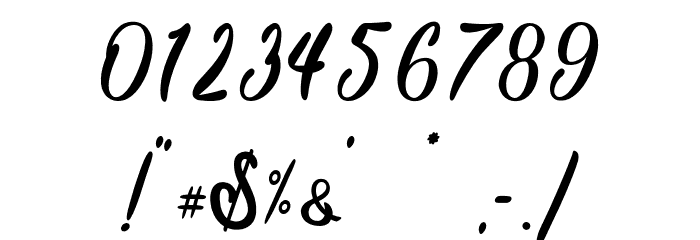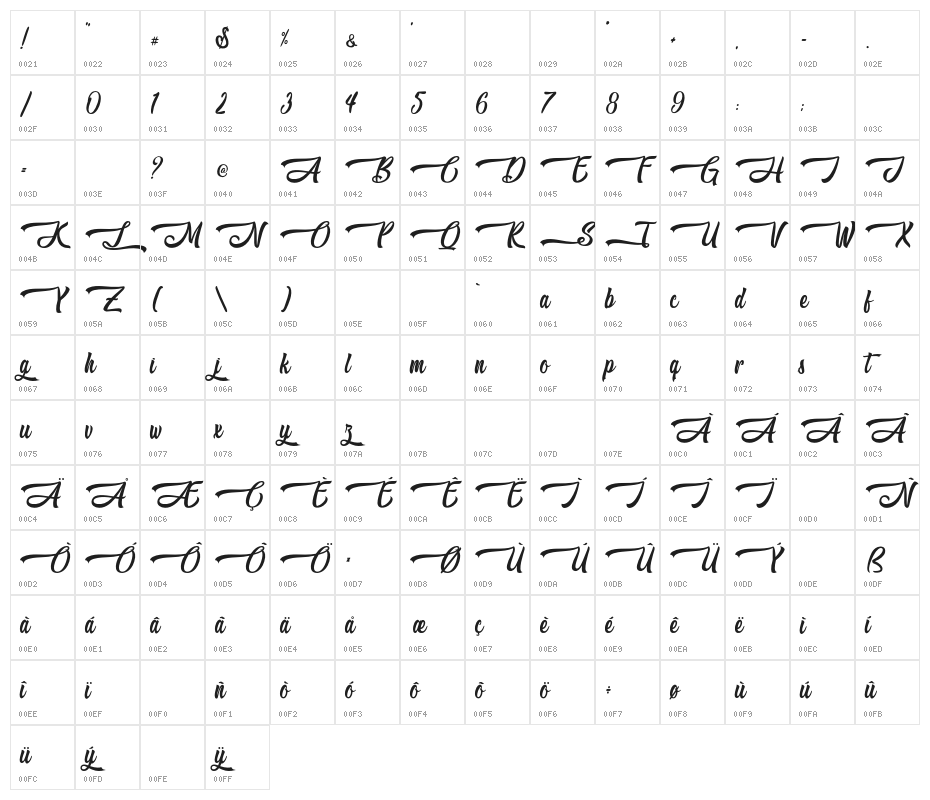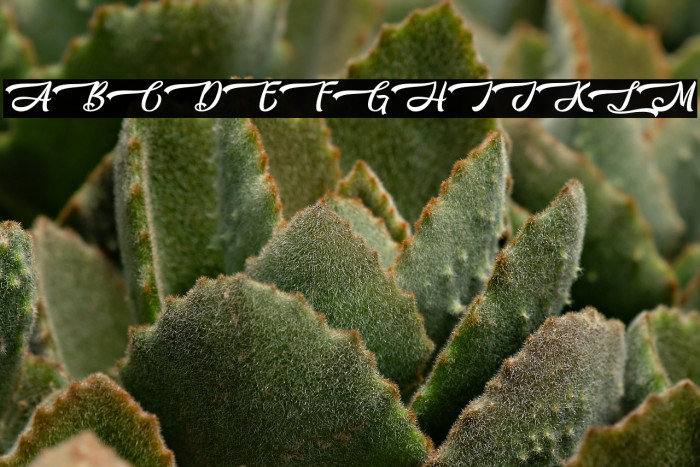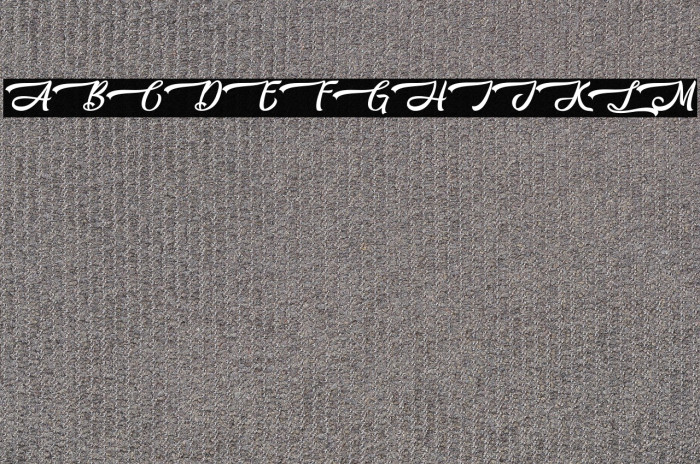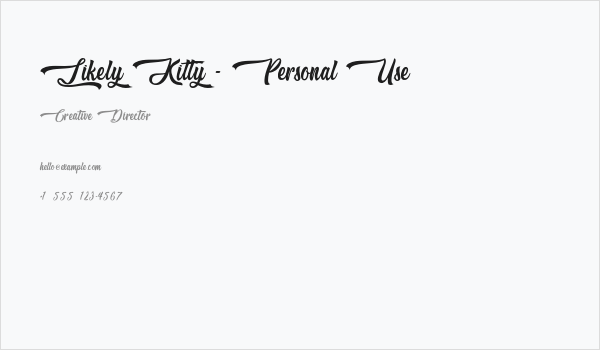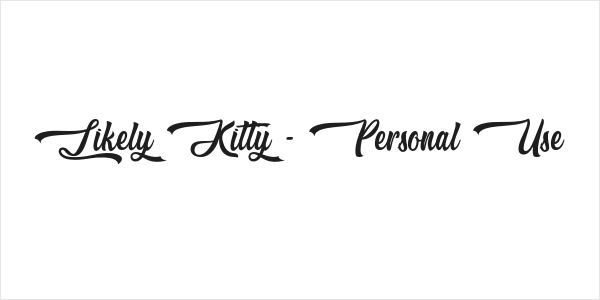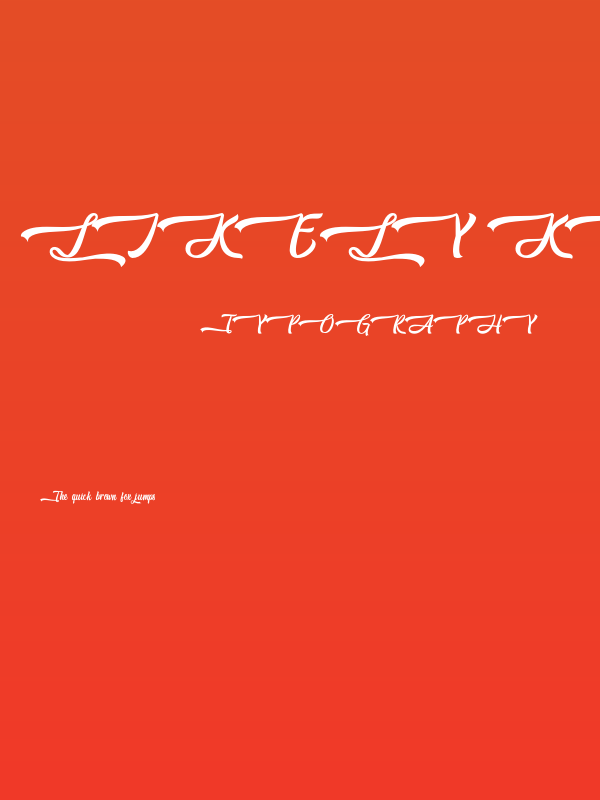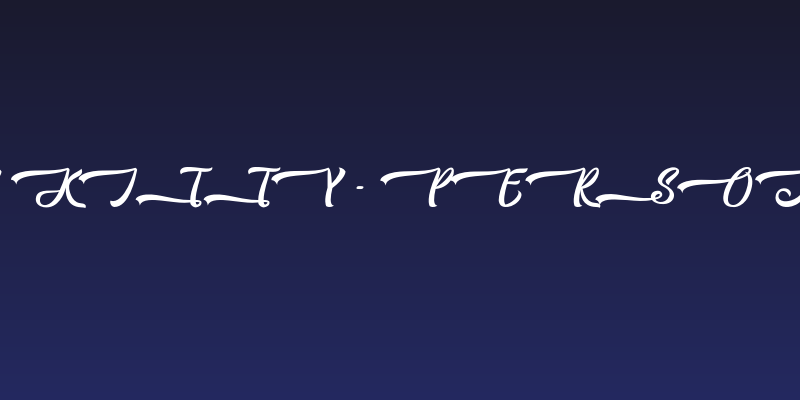
Likely Kitty - Personal Use Font
Likely Kitty - Personal Use Description
This font features a playful and elegant script style, characterized by its flowing, cursive letters. The uppercase letters are adorned with decorative swashes, giving them a whimsical and artistic flair. The lowercase letters maintain a smooth, connected appearance, enhancing the font's fluidity. Numbers and special characters are designed to match the overall style, ensuring consistency throughout. The strokes are moderately thick, providing a bold presence without overwhelming the design. This font exudes a sense of creativity and charm, making it suitable for a variety of artistic applications.
| Proposed Projects | Ideal for wedding invitations, greeting cards, branding, and artistic projects requiring a touch of elegance. |